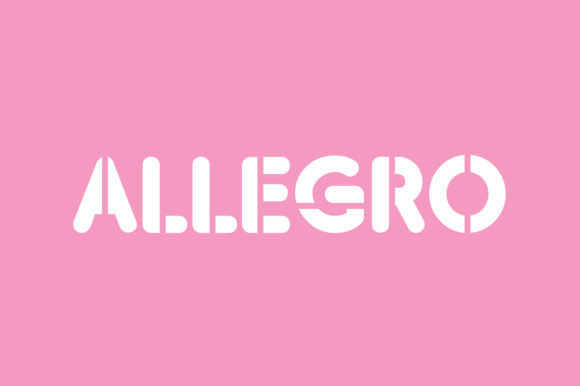
Unleash the Power of Headlines with Allegro, a Display Font That Speaks Boldness!
Prepare to be mesmerized by Allegro, a display font that exudes cool, neat, and minimalistic vibes, ready to transform your headlines into captivating masterpieces. Step into a world of design possibilities where Allegro effortlessly complements your creative projects, adding a touch of distinction that makes them shine.
With Allegro, you hold the key to unlock a universe of visual appeal. Its clean lines and understated elegance create an impact that leaves a lasting impression. Whether you're a seasoned designer or just starting your creative journey, Allegro is your perfect companion, guiding you towards design excellence.
Visualize your words taking center stage, commanding attention with Allegro's bold presence. This font is a true attention-grabber, ensuring your message cuts through the noise and resonates with your audience. Let Allegro elevate your headlines, making them impossible to ignore.
Don't settle for ordinary when you can embrace the extraordinary. Allegro is the catalyst for transforming your creative vision into reality. Its versatility knows no bounds, effortlessly adapting to a myriad of projects, from logos and branding to posters and social media graphics.
With Allegro, you'll discover a font that's more than just a collection of letters; it's an expression of your unique style. Its minimalistic charm invites you to experiment, explore, and let your creativity soar.
Welcome to the world of Allegro, where headlines come alive, and your creative ideas take flight. Embrace the power of this extraordinary font and witness the transformation of your designs.